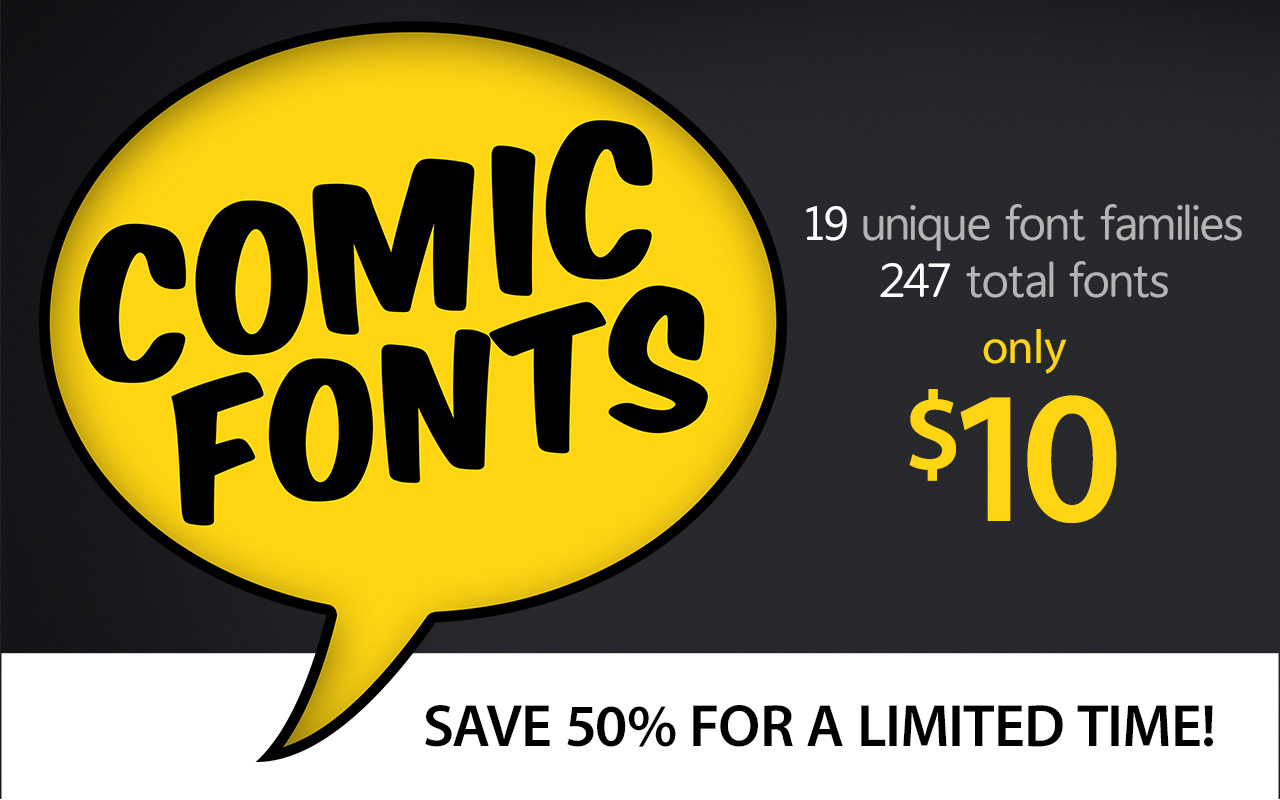
Comic Fonts
A power-packed set of comic fonts designed to jump off the page!
EACH FONT FAMILY INCLUDES: Regular, Bold, Italic, Bold Italic, Condensed, Condensed Bold, Condensed Italic, Expanded, Expanded Bold, Expanded Italic, Wide, Wide Bold, Wide Italic.
- 19 unique font families